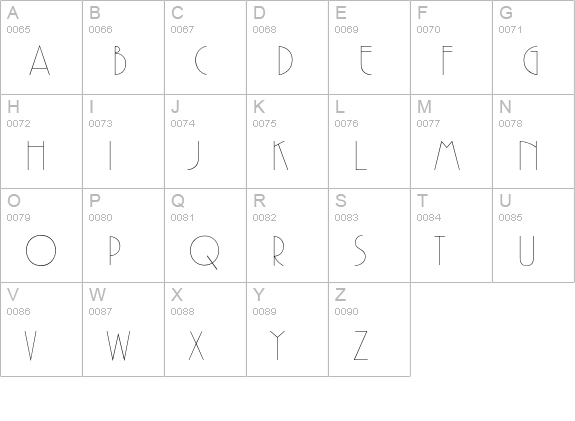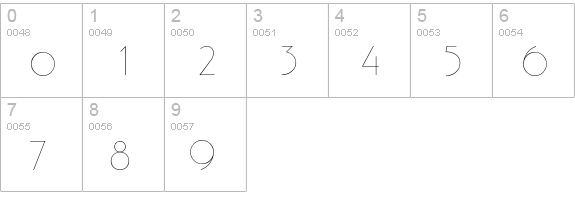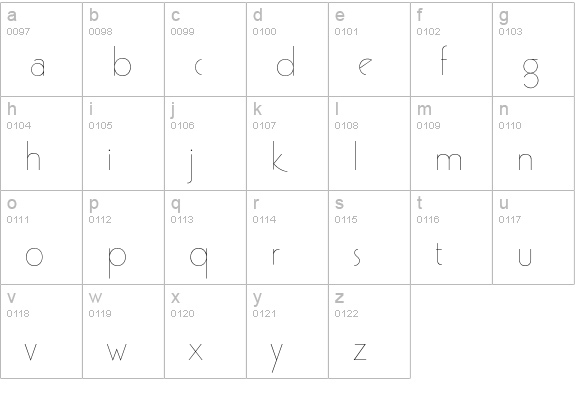
Pergamon Font Details
Introducing Pergamon, a beautifully crafted font that effortlessly combines elegance and modernity. With its sleek lines and sophisticated curves, Pergamon adds a touch of refinement to any project, whether it be for print or digital design. This versatile font is perfect for a wide range of applications, from branding and logo design to editorial layouts and web content. Its clean and legible letterforms make it easy to read, ensuring a seamless reading experience for your audience. Pergamon is not only visually stunning, but it also offers incredible functionality. With a wide range of weights and styles to choose from, you have the freedom to experiment and create unique typographic compositions that perfectly suit your needs. But perhaps the best part about Pergamon is that it is absolutely free. Yes, you read that right – this exceptional font is freely available to download at FontsMarket.com. Whether you're a professional designer, a student, or a hobbyist, you can enjoy the beauty and versatility of Pergamon without any cost. So why wait? Enhance your designs with the timeless elegance of Pergamon today. Download it for free at FontsMarket.com and unlock a world of creative possibilities.